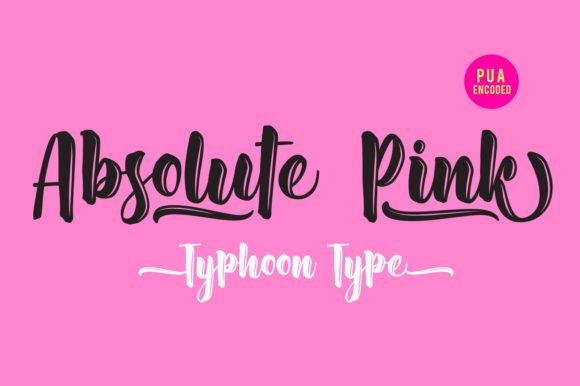
Discover the Delicate Charm of Absolute Pink Font
You know that feeling when you stumble upon a font that just speaks to you? For designers, it’s like finding the perfect color palette or a well-crafted typography piece – it’s the spark that ignites your creativity and sets your project ablaze. For me, that moment came when I laid eyes on the Absolute Pink Font for the first time. Its playful, handwritten style was love at first sight, and I couldn’t wait to share it with the world.
This lovely font is more than just a pretty face; it’s a valuable tool for designers looking to add a touch of elegance to their projects. With its delicate charm and romantic elements, the Absolute Pink Font is perfect for any design project that needs a little extra something special.
Key Features of Absolute Pink Font
- Unique Characteristics: Absolute Pink Font features a distinctive, hand-drawn style with a vibrant pink color scheme, adding a touch of whimsy and playfulness to any design.
- Language Support: The font supports a wide range of languages, including Latin, Cyrillic, and Greek, making it suitable for use in multilingual designs.
- Kerning and Ligatures: Absolute Pink Font includes advanced kerning and ligature pairs, ensuring that text is rendered with precision and elegance.
Designer Review: Absolute Pink Font
Overall, I’d say the Absolute Pink Font is a fun and playful addition to any design project. ✨ It’s perfect for those who want to add a pop of color and whimsy to their work. The font’s unique design makes it stand out, and I appreciate the effort that went into creating something truly one-of-a-kind.
One thing I particularly love about Absolute Pink Font is its versatility. ✨ It works well in digital design, from social media graphics to website headers, and it even looks great on print materials like business cards and brochures. Additionally, the font is highly customizable, allowing designers to adjust the size, color, and style to fit their specific needs.
- ⚠️ Overuse warning: While the font is fun to use, it can quickly become overwhelming if overused. I’ve seen projects where the font is used in every heading and subheading, and it starts to feel like too much.
- ⚠️ Not ideal for formal content: Due to its playful nature, the Absolute Pink Font might not be the best choice for formal content, such as academic papers or business reports.
Overall, I’d give the Absolute Pink Font 4 out of 5 stars. It’s a great choice for designers who want to add a touch of personality to their work, but it may not be the best fit for every project.
Alternative Fonts to Absolute Pink Font for Designers
Pink Magic Font
Pink Magic Font is a vibrant and playful sans-serif font that is perfect for creating a whimsical atmosphere in designs. It’s ideal for use in children’s products, fashion brands, and social media graphics.
Compared to Absolute Pink Font, Pink Magic Font has a more rounded and delicate look, making it suitable for designs that require a softer touch.